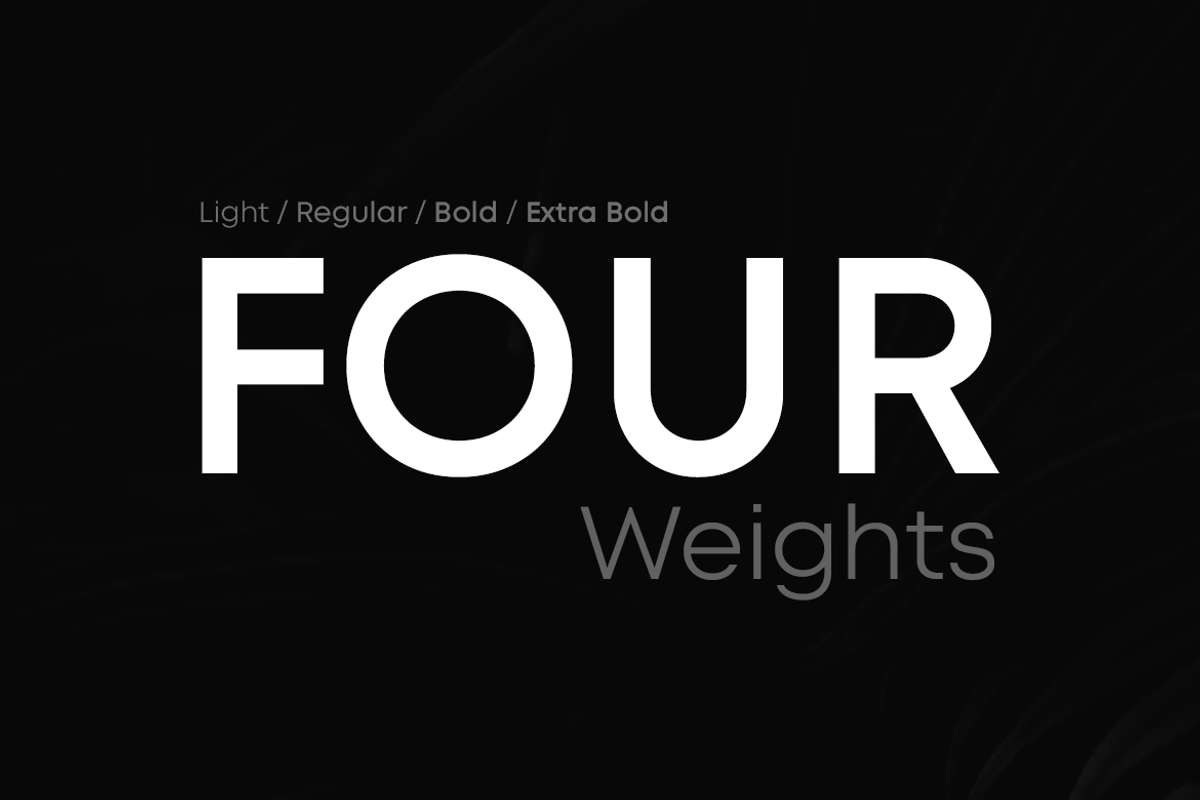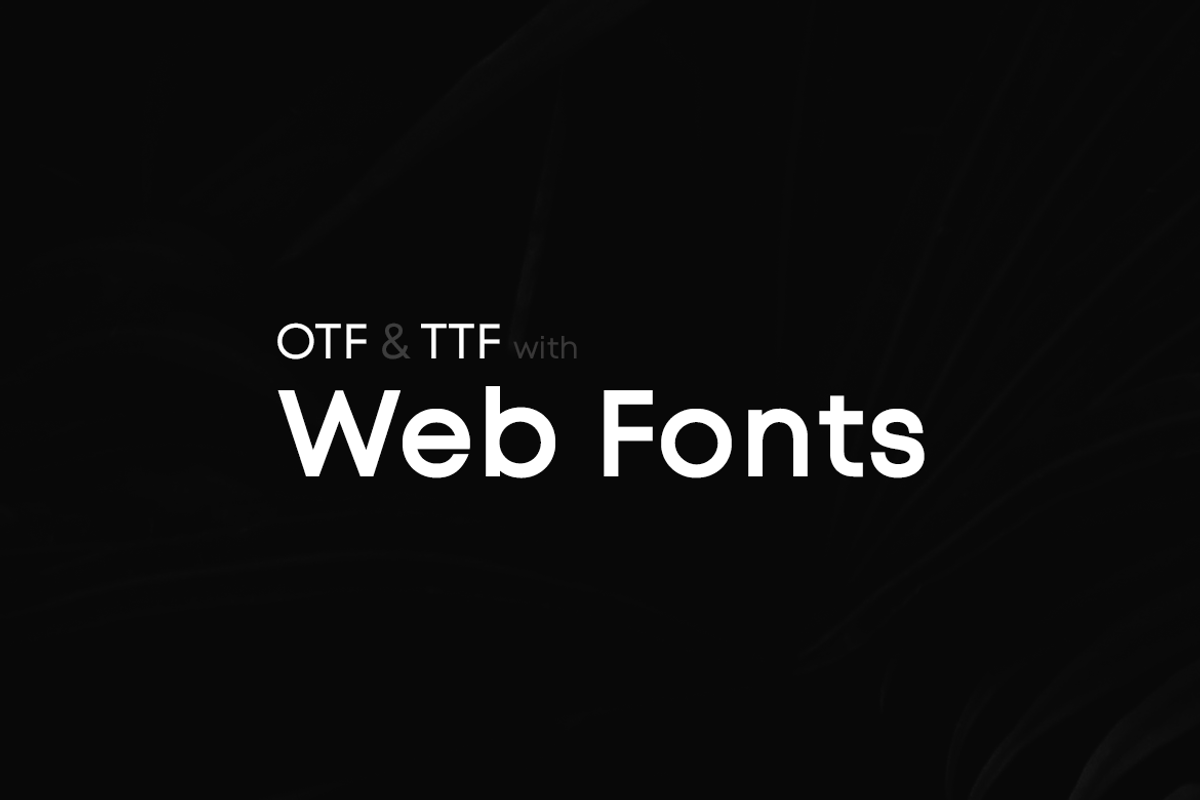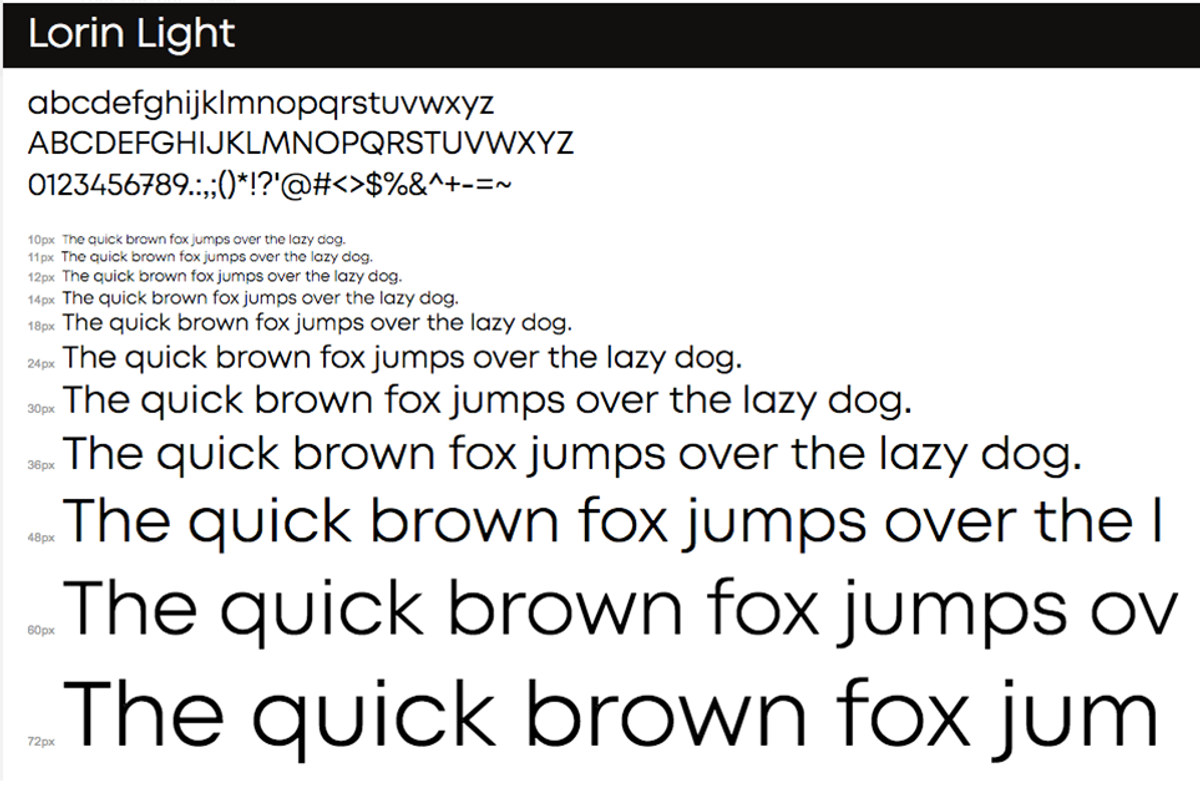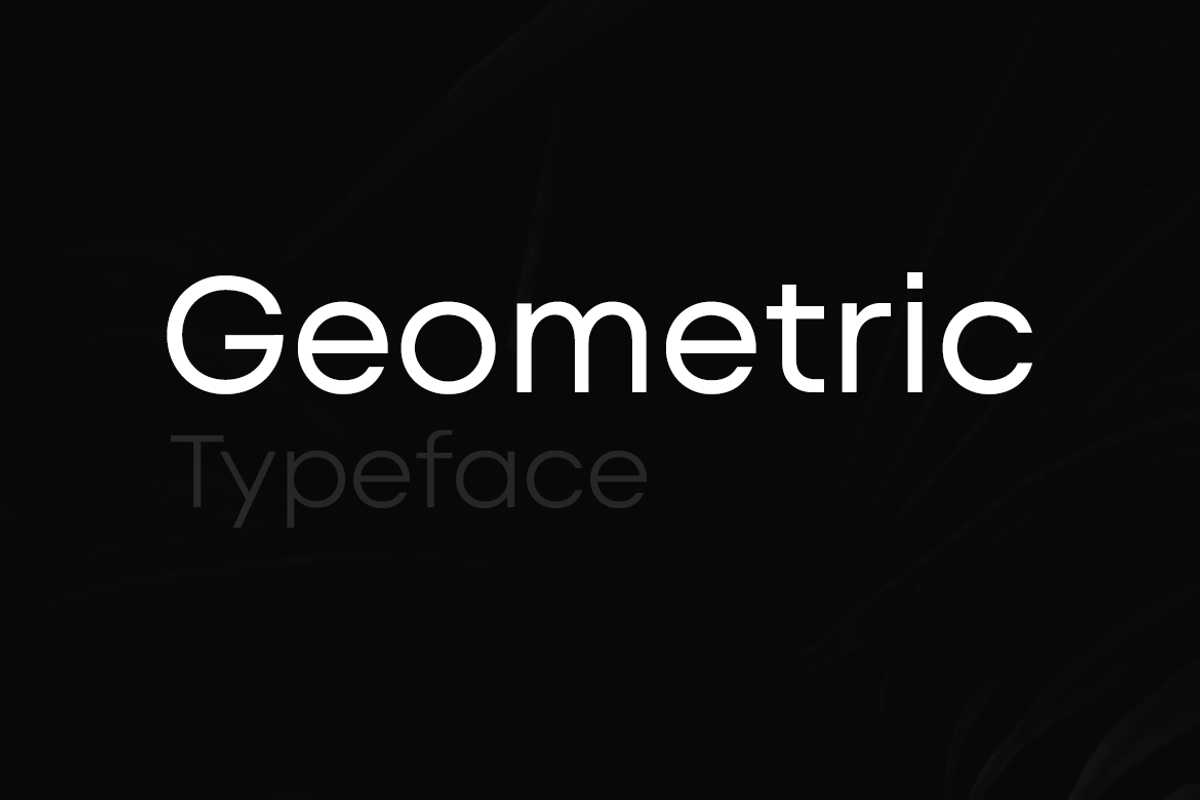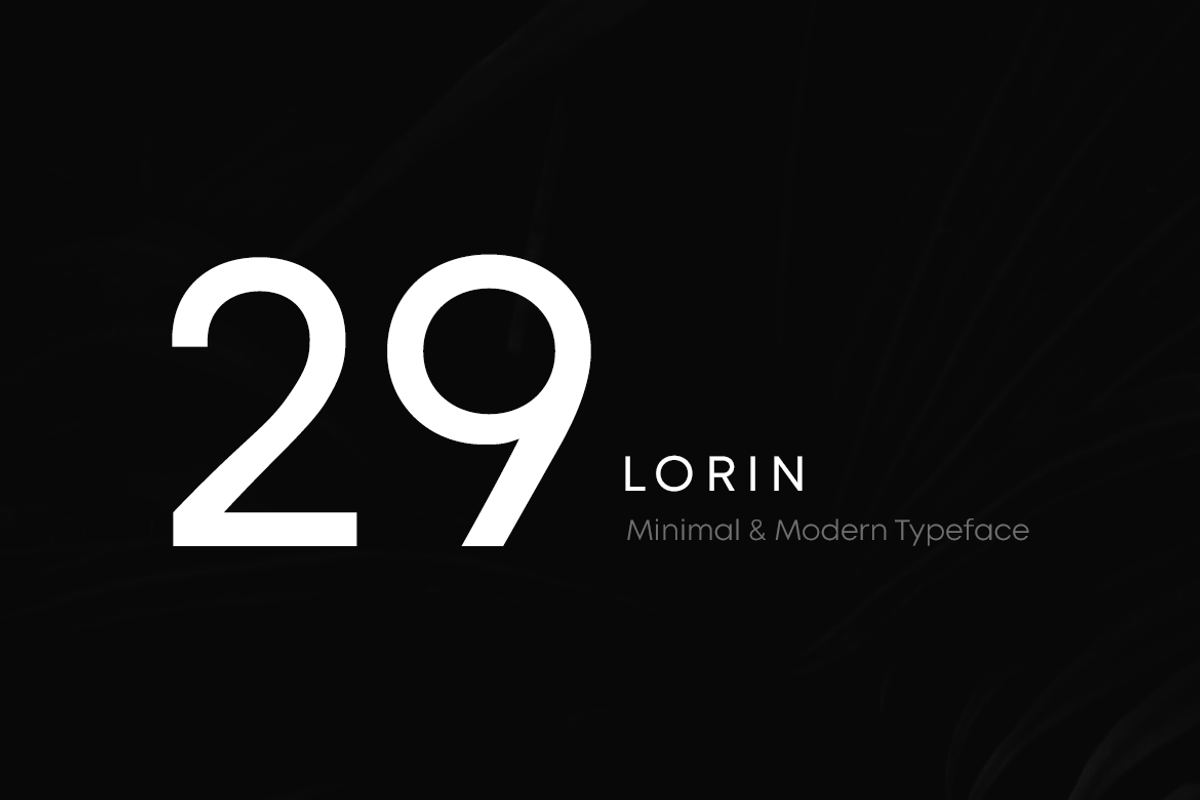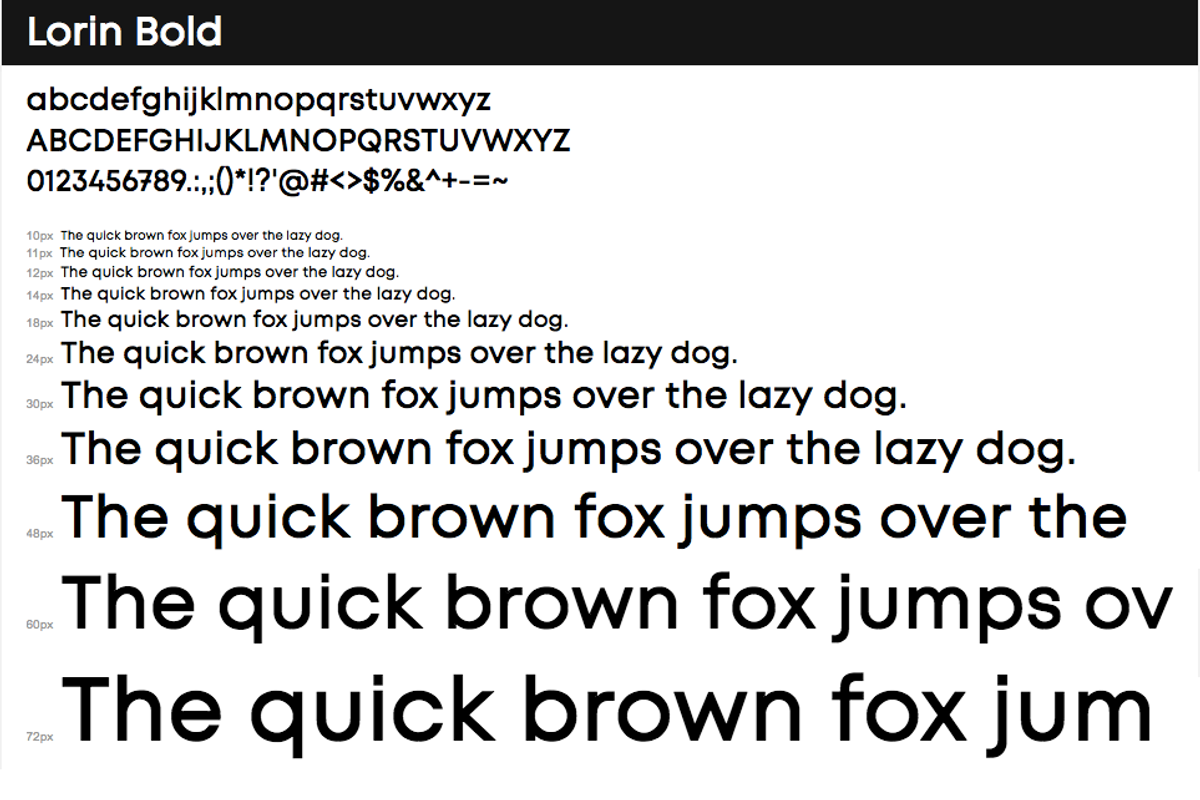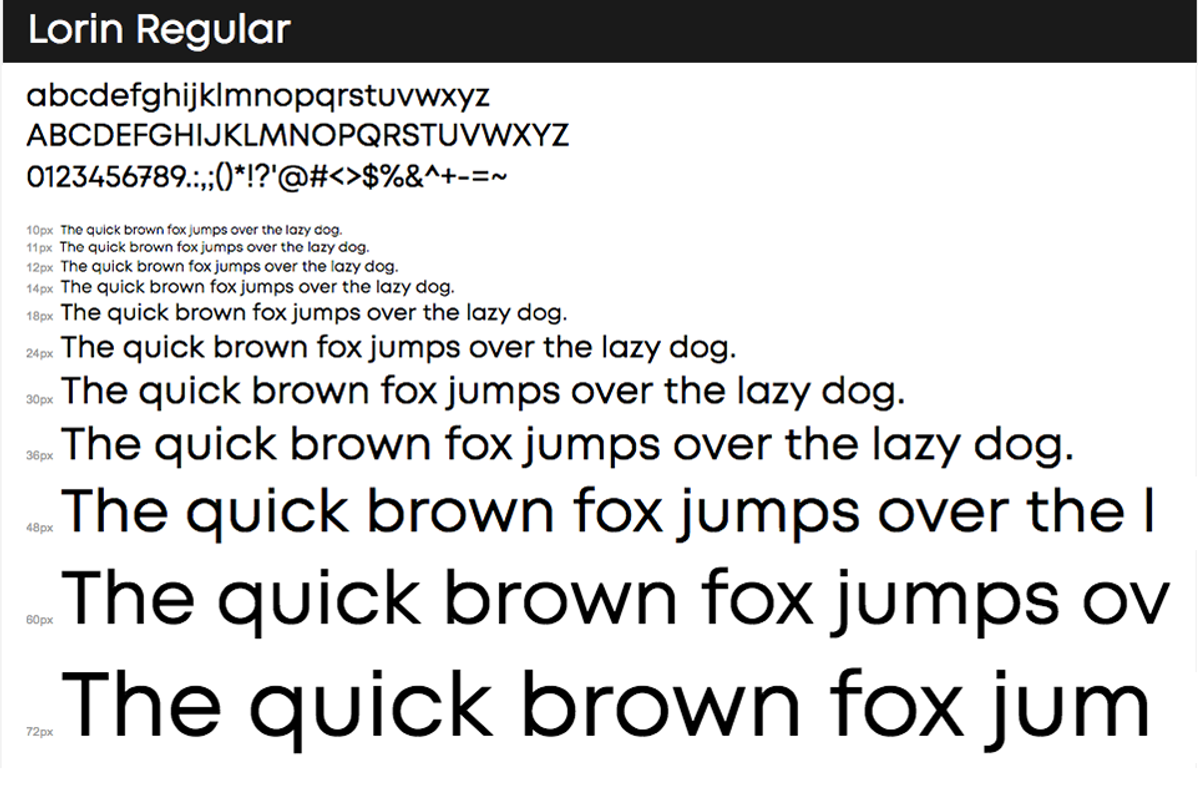
LORIN - Clean Geometric Font Family
LORIN is a modern geometric Sans Serif typeface with a great focus on aesthetic quality of typography. The concept of LORIN is inspired from some of the classic geometric fonts but with an added quality and charm.
LORIN will be best suited for creating any type of content such as logo type, headlines, normal body texts, big posters and anything that you like. If you add some letter spacing you will get a unique style that you always find in high profile fashion web stores and minimal portfolio websites. The font comes with 4 weights with all formats including Web Fonts.